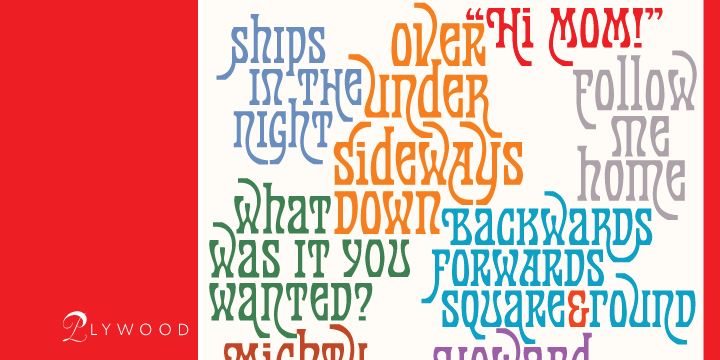
Plywood Pro is a retro font published by Canada Type.
Plywood is based on a long lost American film classic: Franklin Typefounders’s Barker Flare from the early 1970s.
Plywood is a surprisingly effective mix between the rigid confidence of nineteenth century wood types and the smooth feminine curves of twentieth century art nouveau ideas. With many variations on almost every letter in the alphabet, it’s a versatile typeface that can make itself timelessly at home in multiple design environments, with motifs ranging from the strong and western to the crafty and artsy.